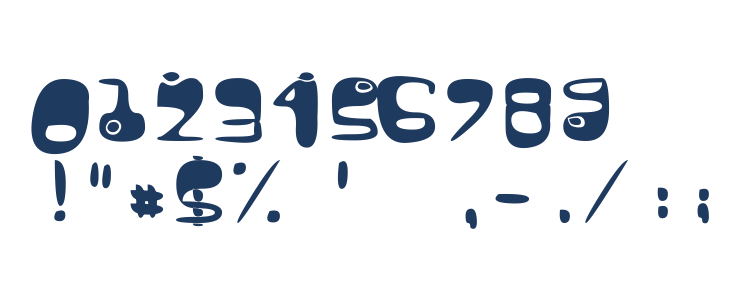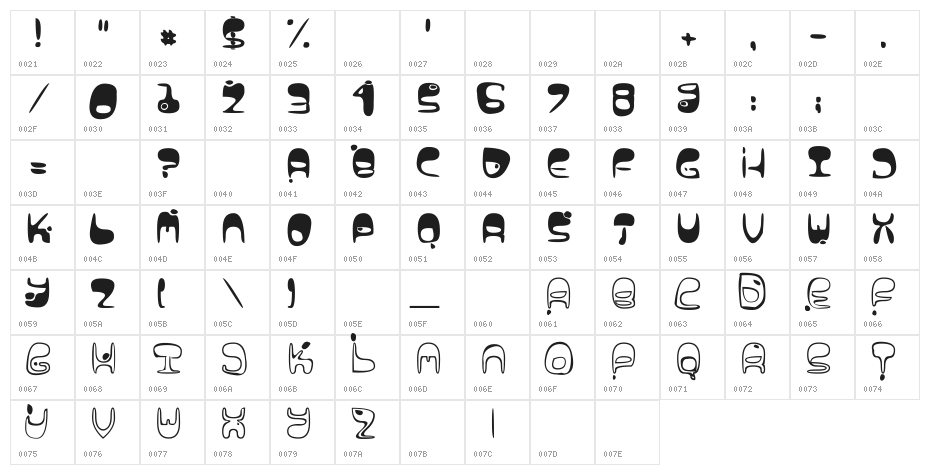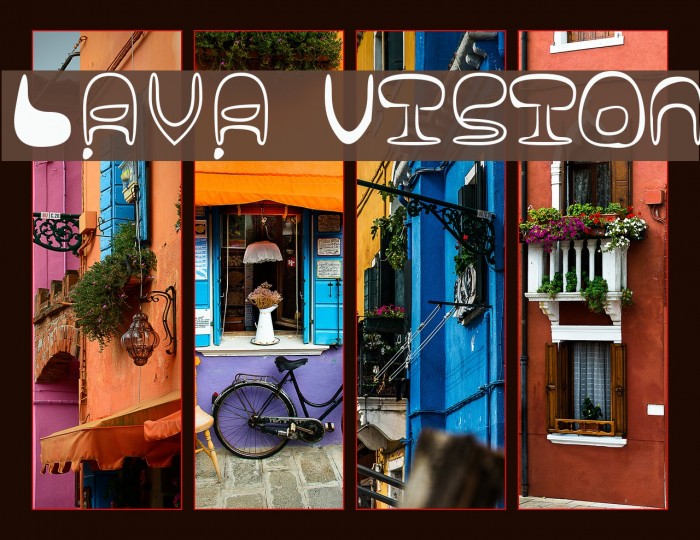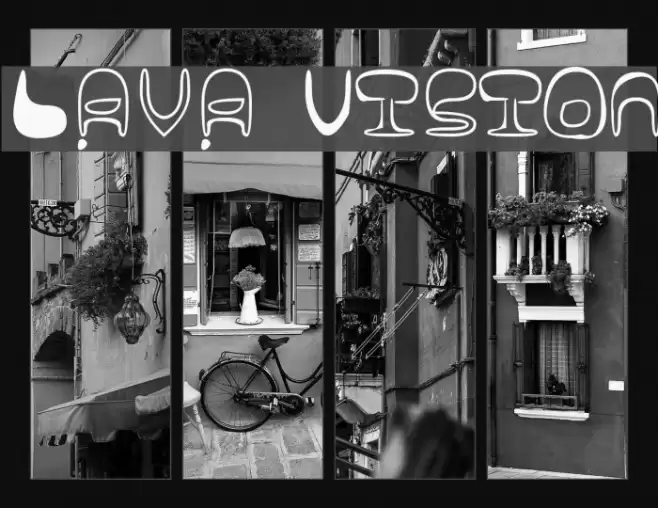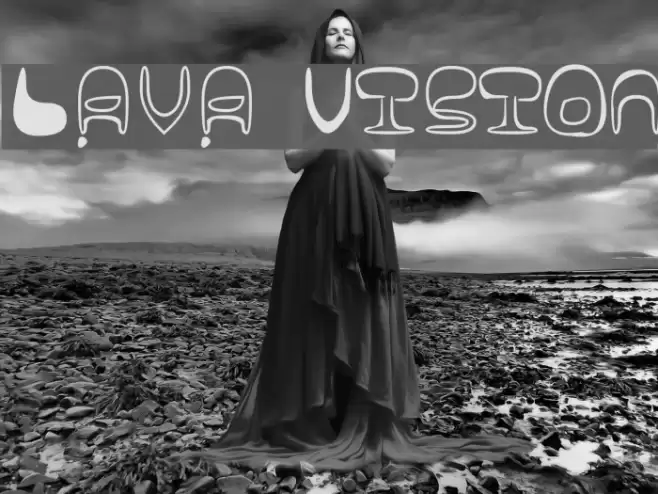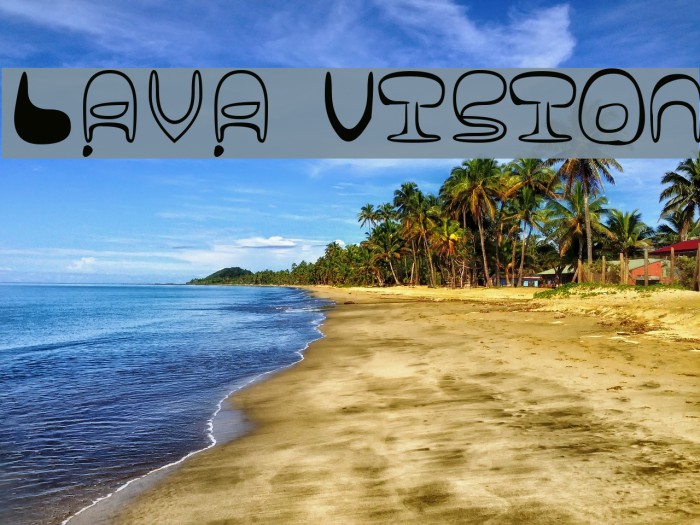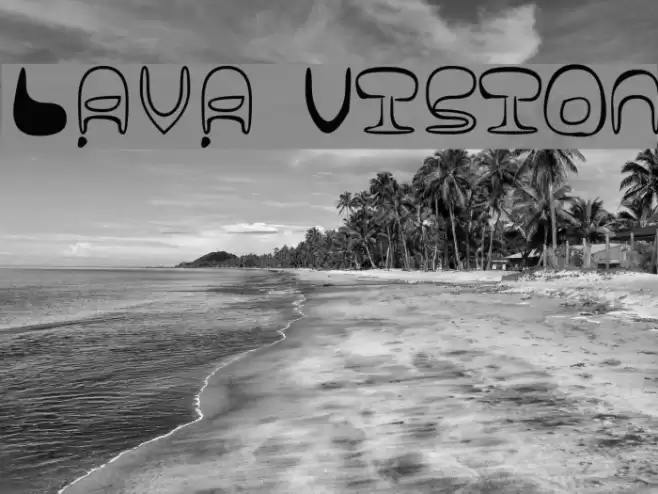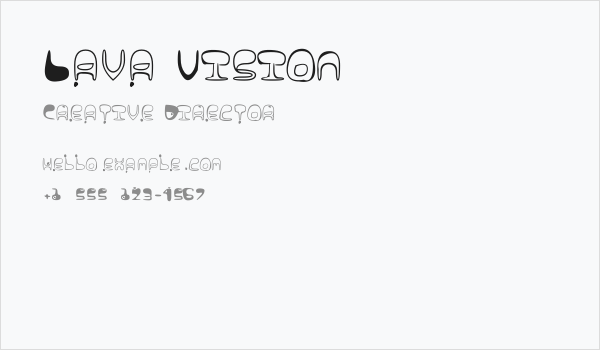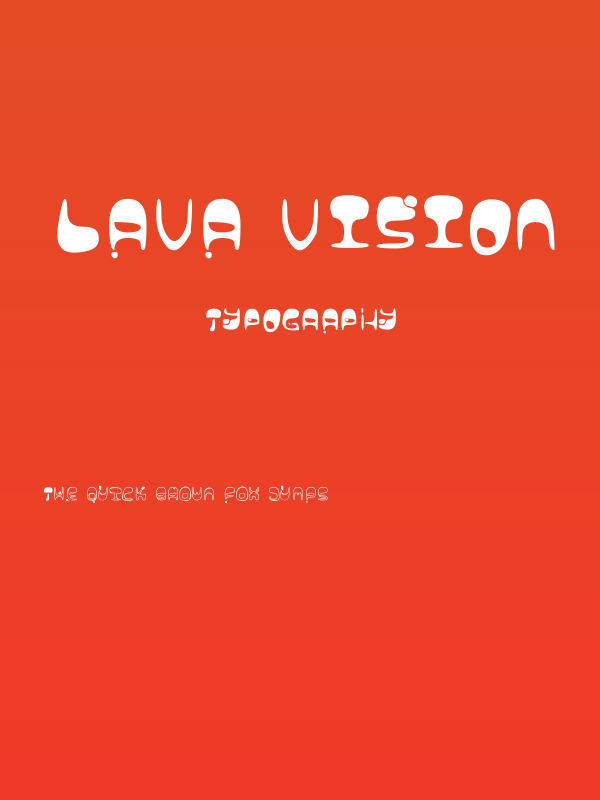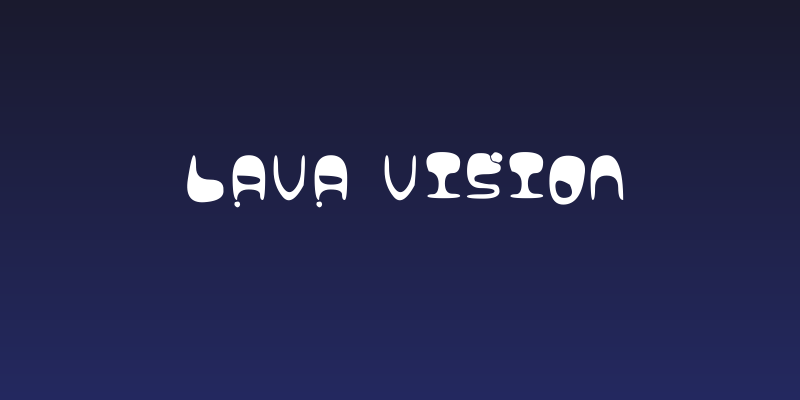
Lava Vision Font
Lava Vision Description
This font features a unique and playful design with a bubbly, fluid appearance reminiscent of molten lava. The characters are rounded with irregular shapes, giving them a dynamic and whimsical feel. The uppercase and lowercase letters maintain a consistent style, with some characters incorporating small dots or extensions that add to the font's lively character. The numbers and special characters follow the same playful theme, making the font suitable for creative and informal applications. Its distinctive style makes it stand out, ideal for projects that require a fun and engaging visual element.